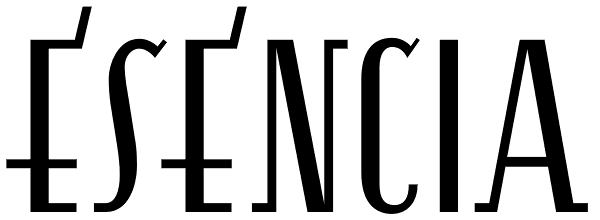
Esencia
Esencia, a CastleType original, was inspired by a Spanish stock certificate from 1941 with 11 beautiful art deco style letters for the words "PERFUMES y ESENCIAS". Slender, elegant, with a Spanish flare. Uppercase only with numerals and punctuation...